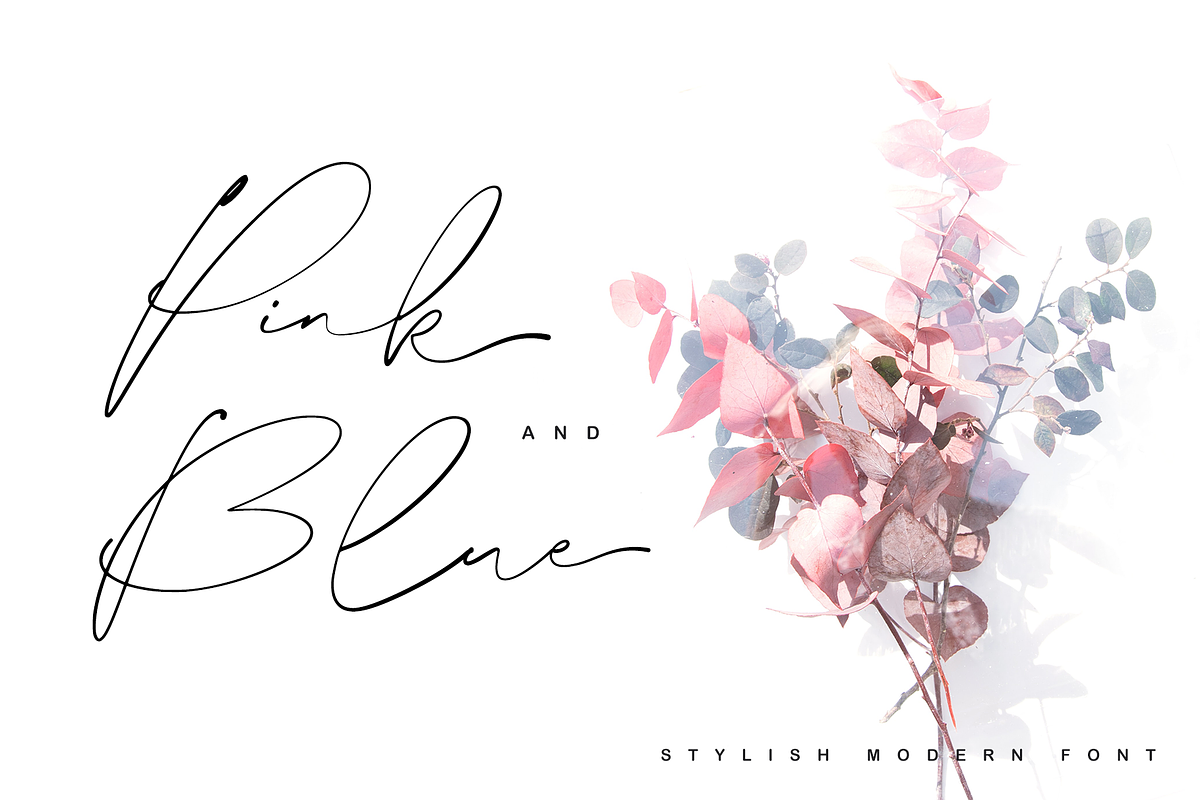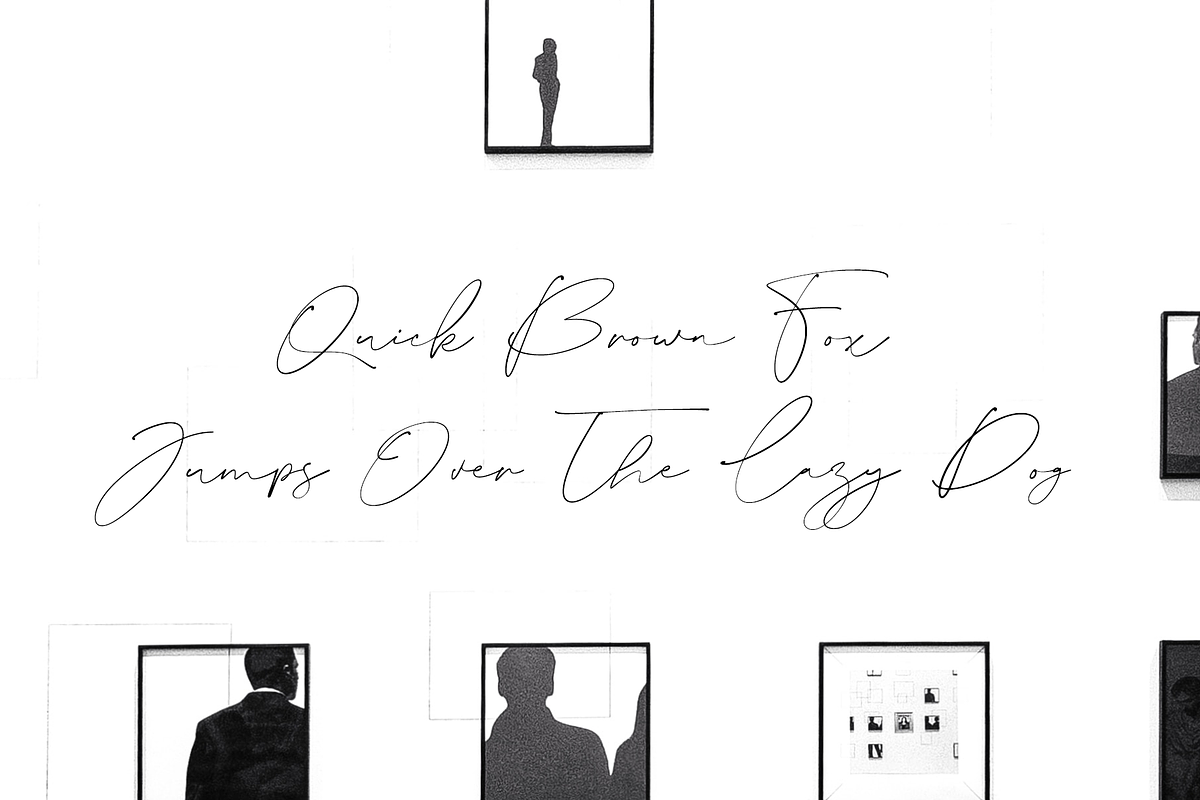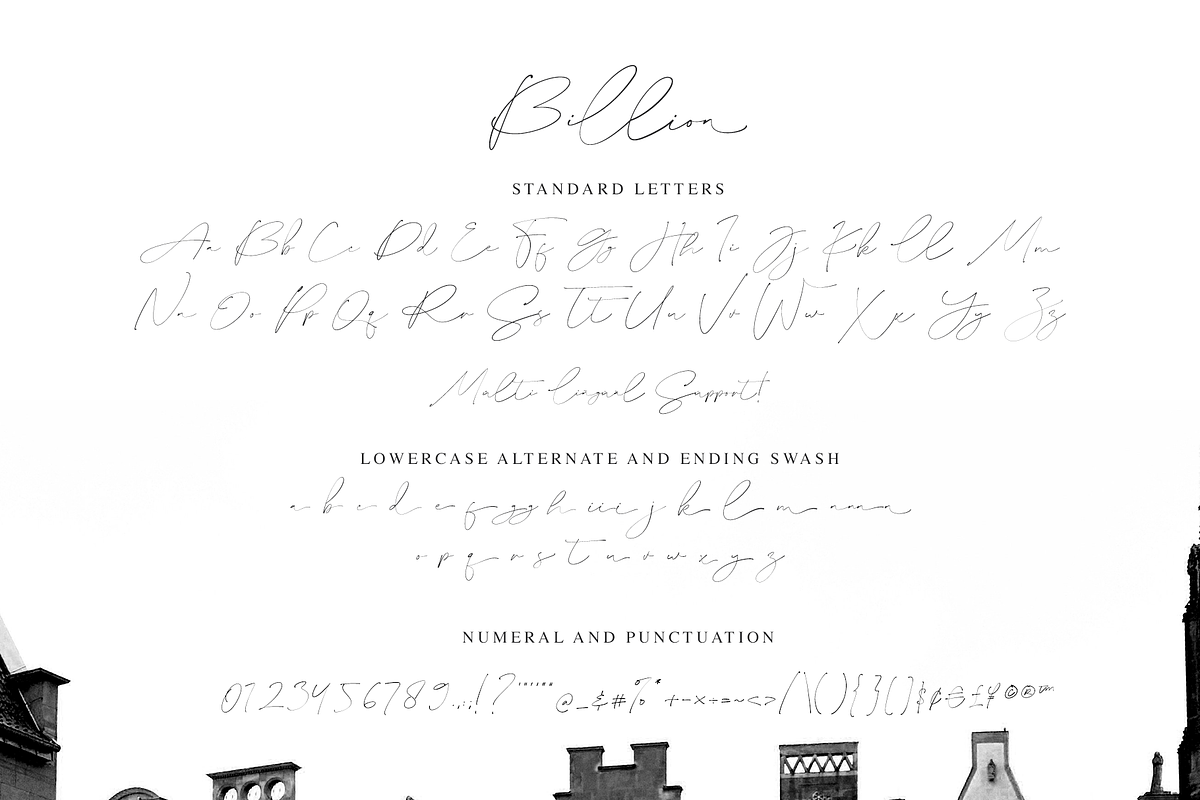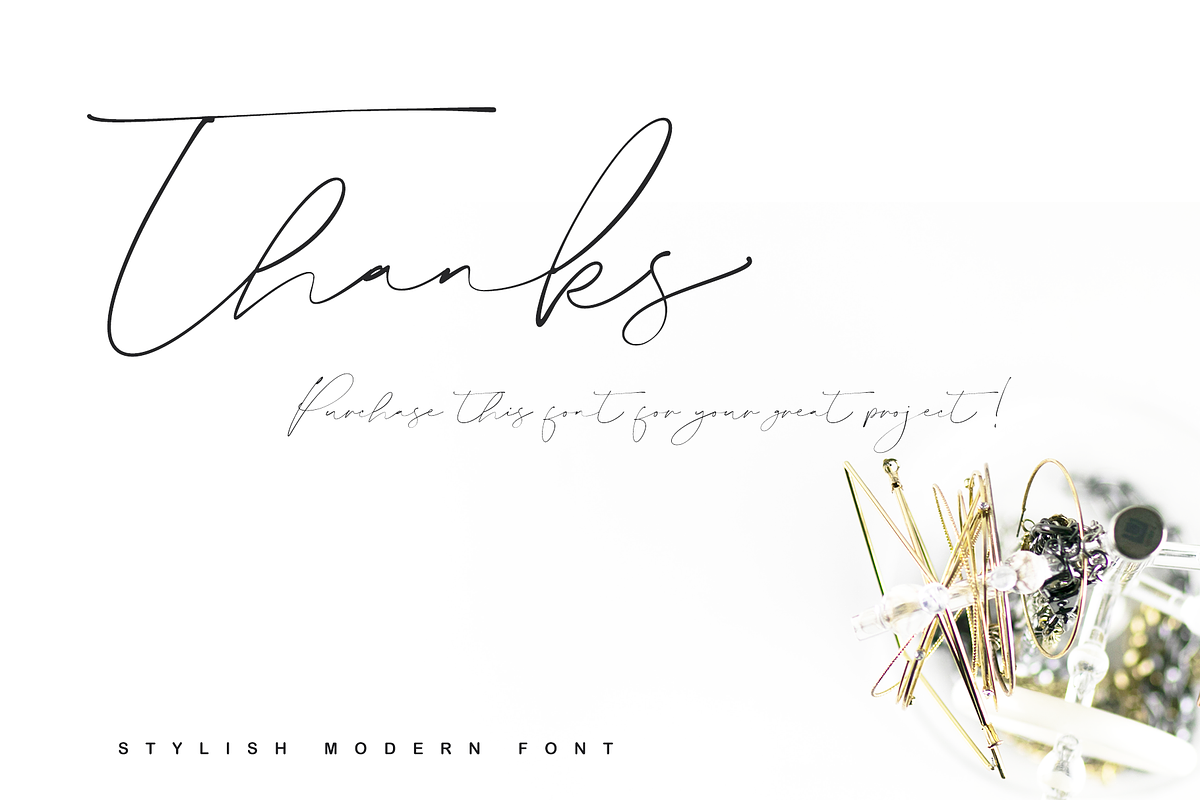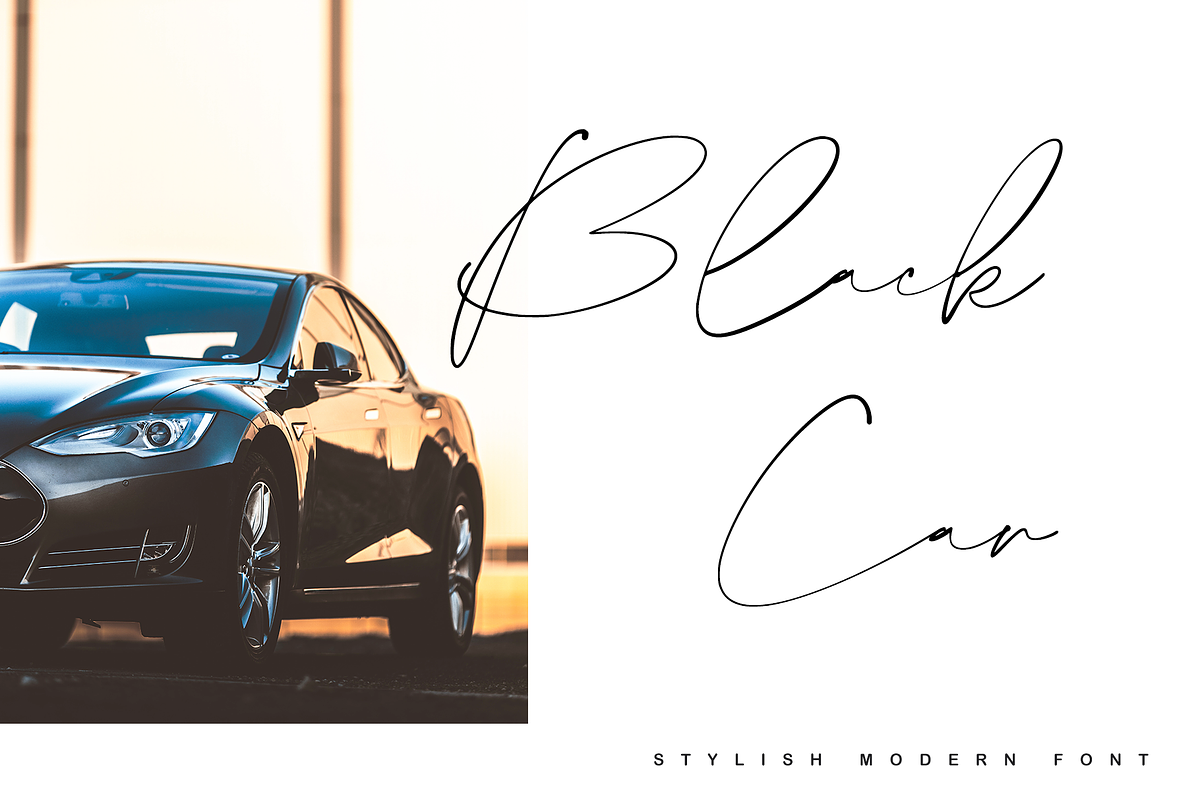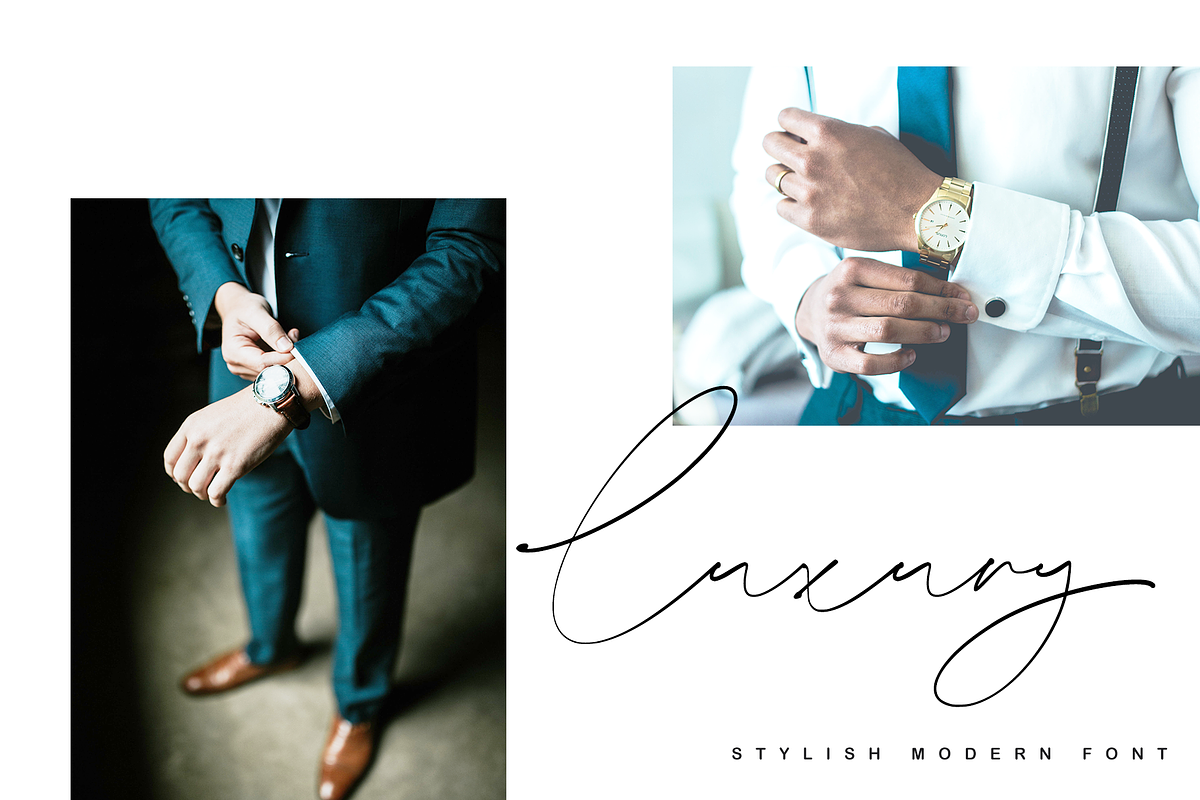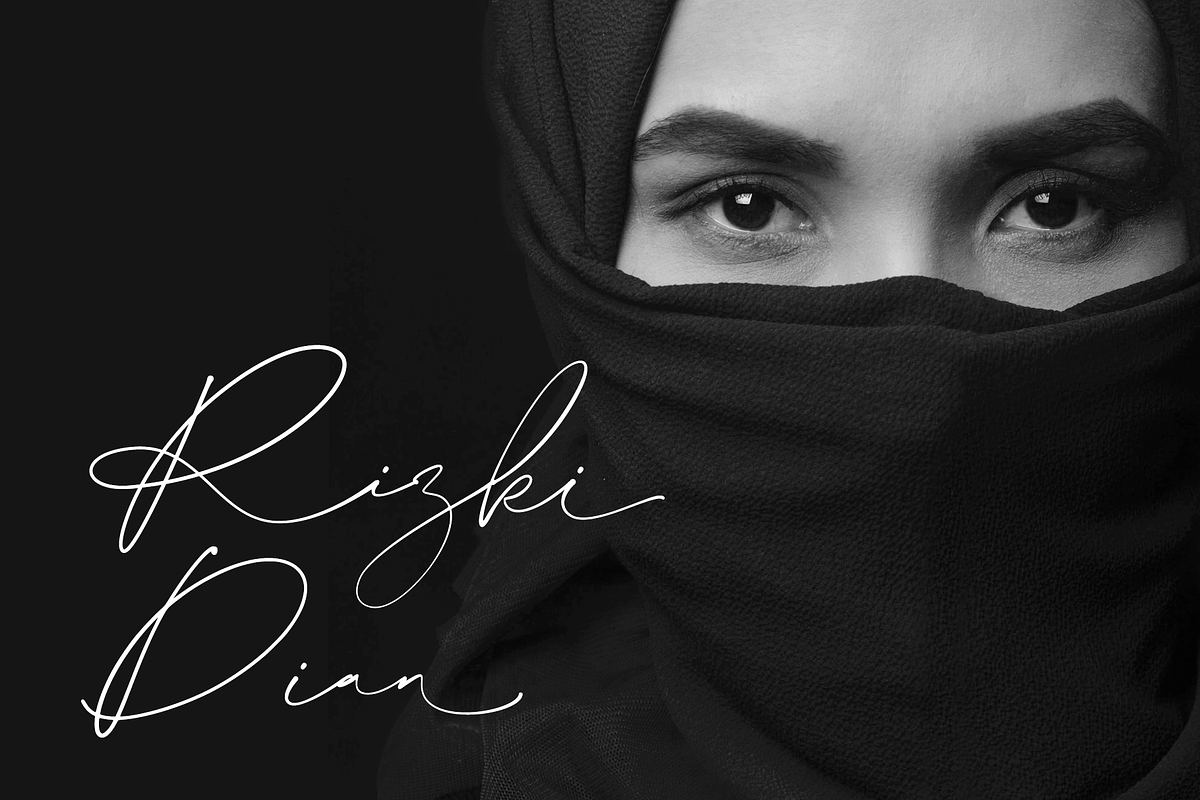
Billion
Billion is a handwritten script font with a Gel pen and natural style, this font is great for your next creative projects such as watermark on photography, quotes, album cover, logo, business card, and many other design project.
Billion comes with uppercase letters, lowercase letters, alternate lowercase letter, numbers and punctuation